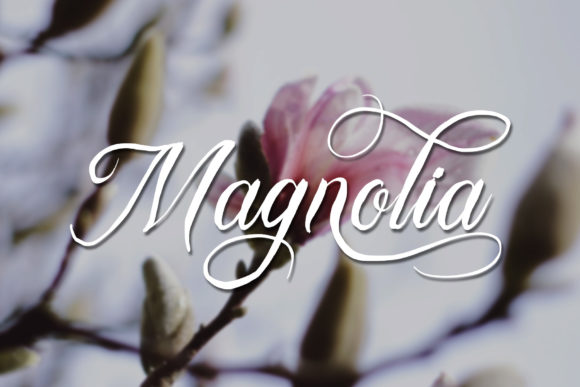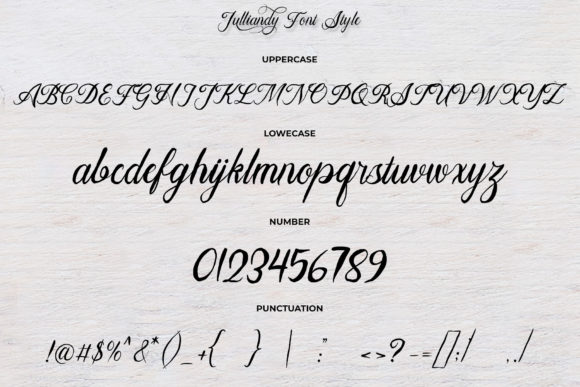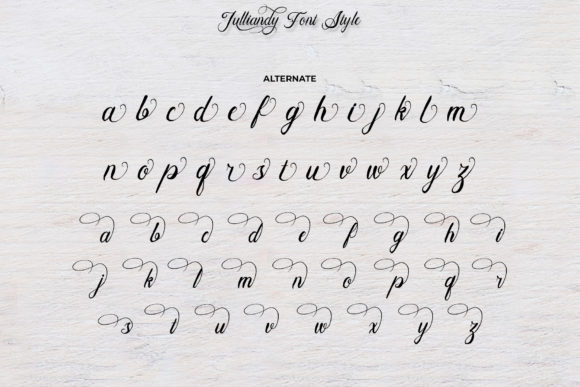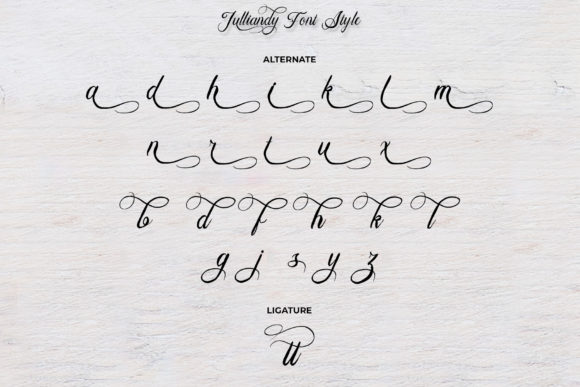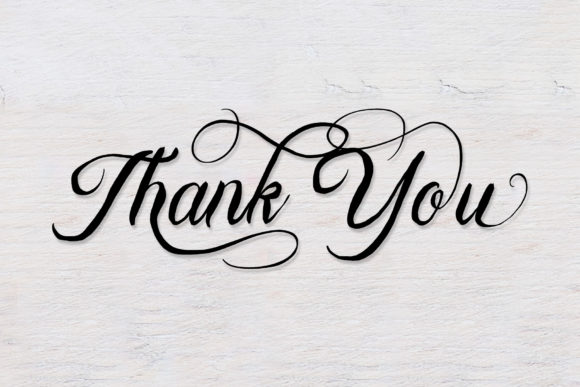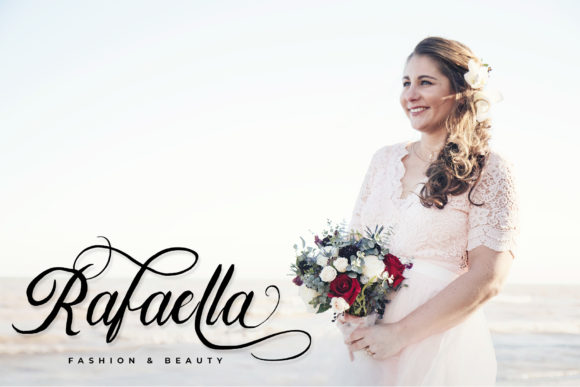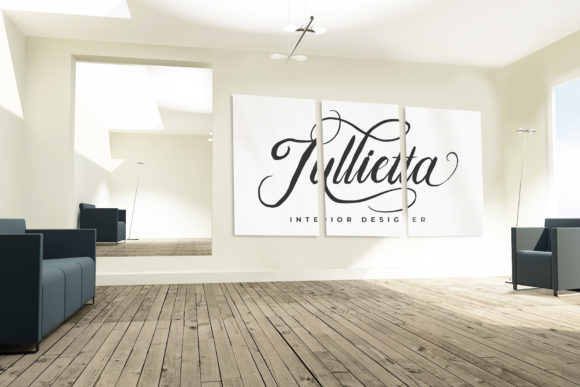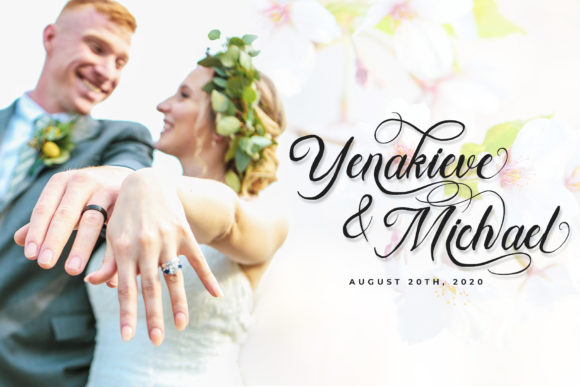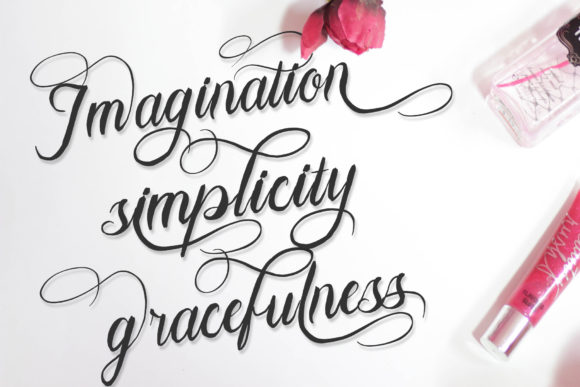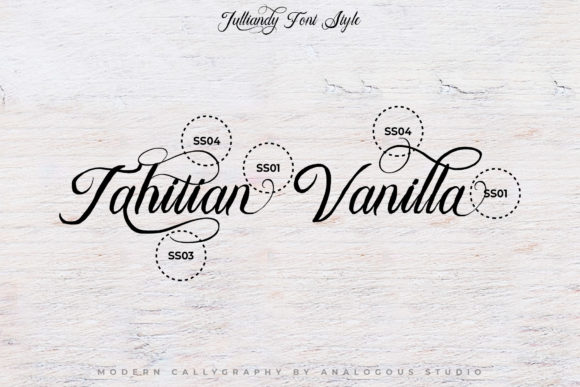
Bulliandry Font
About Bulliandry Font
Bulliandry Calligraphy is a magical handwritten font carefully created with a touch of elegance. This is a beautiful combination of timeless elegance and authentic calligraphy. It features an incredibly classic style, while still keeping a friendly feel. This font is the perfect font for making original and outstanding designs.